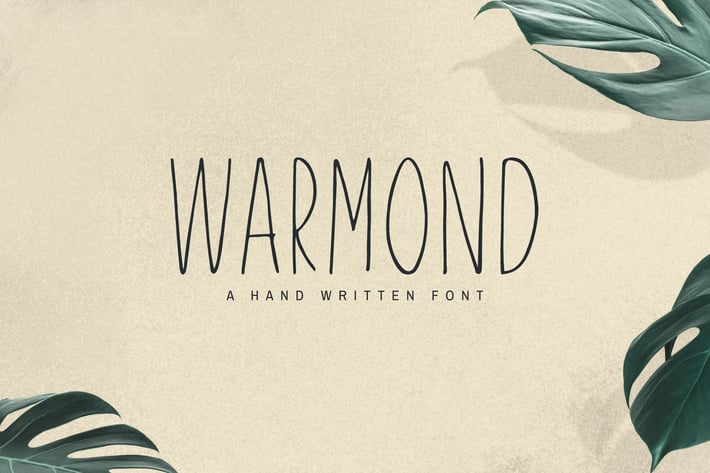
Warmond Sans Serif Font
Warmond is a cool, sober and thin lettered handmade font that’ll add a luxury spark to any design project that you wish to create! It contains complete basic glyphs with multilingual support. Warmond will be perfect for packaging, presentations, logo, headlines, lettering, posters, branding, quotes, titles, magazines headings, web layouts, advertising, invitations, packaging design, books, and nearly any creative design.
Warmond Font Features:
- Uppercase Letters
- Lowercase Letters
- Non English Characters ( Latin Supplement + Latin Extended A)
- ABCDEFGHIJKLMNOPQRSTUVWXYZ
- abcdefghijklmnopqrstuvwxyz
- 0123456789
- !"#$%&'()*+,-./:;?@[\]^_`{|}~¥
- ÀÁÂÃÄÅÈÉÊËÌÍÎÏÑÒÓÔÕÖÙÚÛÜ
- àäáâãäåèéêëìíîïñòóôõöùúûüýÿỲ